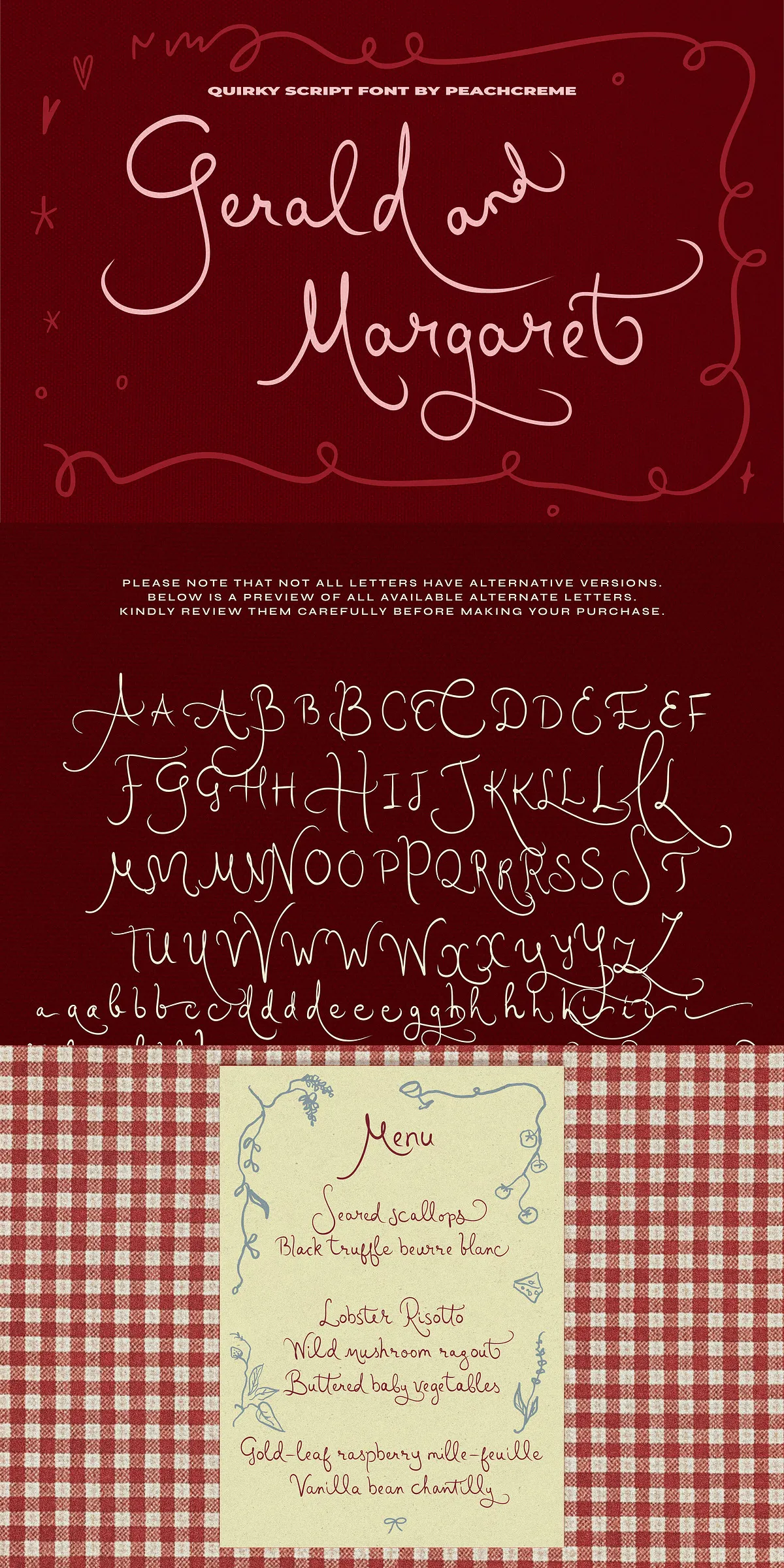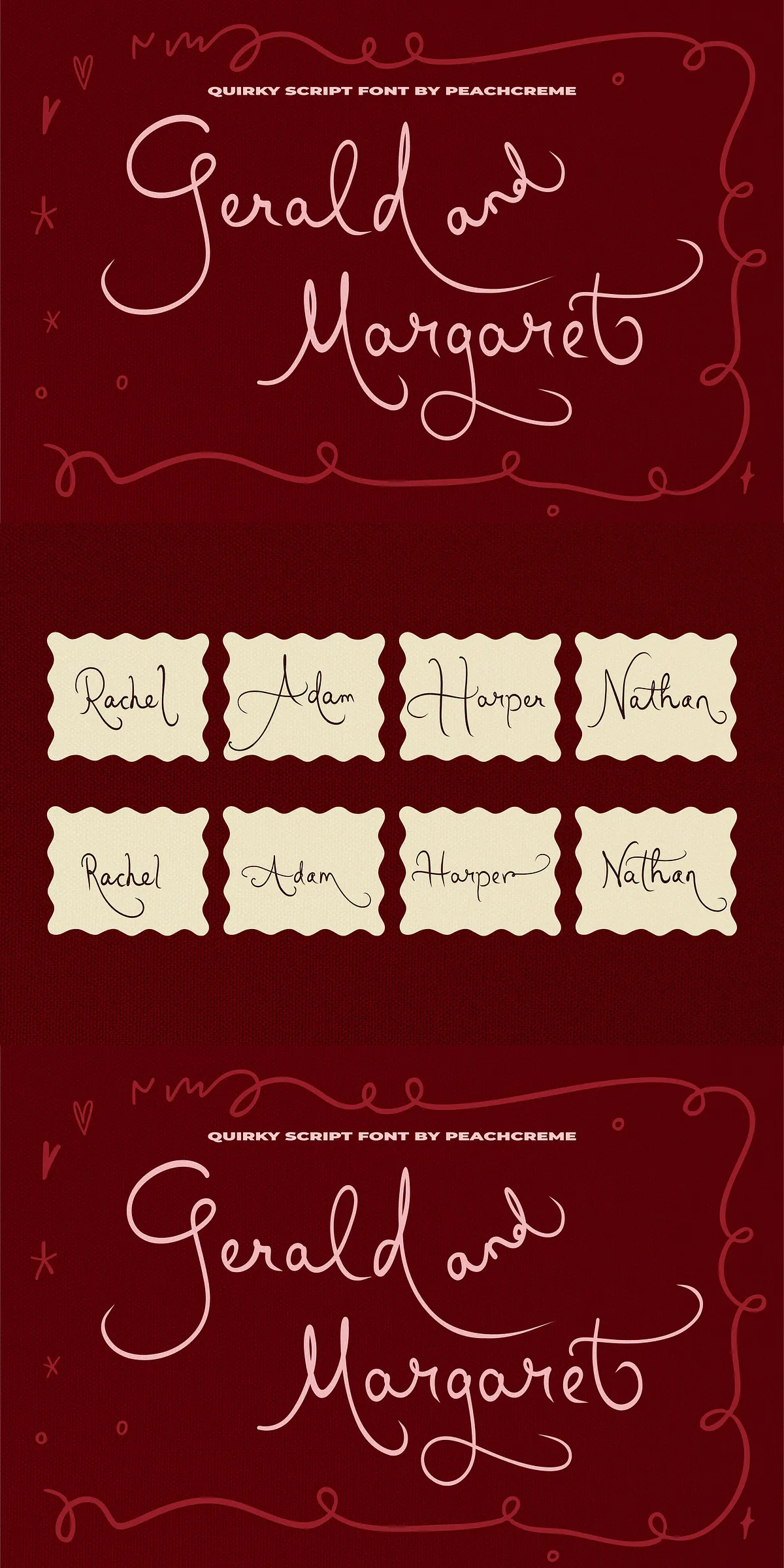
Unleash a burst of creativity with Gerald and Margaret Font — a delightfully quirky, light-hearted script designed to bring joy, warmth, and character to every project. Its fluid, hand-drawn strokes dance across the page with a natural rhythm that mimics genuine handwriting, making your designs feel personal, lively, and full of spirit. Whether you’re crafting a birthday invitation, a boutique label, or a brand identity, Gerald and Margaret doesn’t just spell words — it tells stories with charm and flair.
Born from Playfulness – A Script with Personality
Gerald and Margaret isn’t just a font; it’s a mood. Each character was thoughtfully crafted to reflect a carefree, artistic energy. The delicate upstrokes, expressive tails, and swaying curves create a visual rhythm that feels spontaneous, unstructured, and refreshingly alive. This isn’t rigid typographic perfection — it’s imperfection with a purpose. The intentional inconsistencies in stroke thickness and letter spacing echo the real magic of hand-lettering, giving your work an authentic, handmade identity that digital clones can’t replicate.
Rich Alternates & Ligatures for Dynamic, Unique Text
The real magic of Gerald and Margaret lies in its variety. This font pack comes packed with a curated set of alternative characters and custom ligatures that open up endless creative possibilities. Not all letters have alternates, but those that do offer multiple options — letting you vary your design with every word. With just a few clicks, switch between style options to avoid repetition, create visual interest, and tailor each line to your vision.
Ideal for Projects That Demand Charm and Energy
Gerald and Margaret thrives where personality matters most. Its expressive nature makes it a top choice for:
Handwritten Invitations & Event Stationery
Bring weddings, baby showers, and birthday parties to life with invites that feel personal and heartfelt. The natural flow of the script creates a warm, welcoming atmosphere — like receiving a real handwritten note from a friend. Use it for save-the-dates, menus, thank-you cards, and envelopes that stand out in a stack.
Brand Identity & Boutique Labeling
Design standout logos, packaging, and product tags for lifestyle brands, artisanal goods, gift shops, and beauty lines. Gerald and Margaret adds a human touch that builds trust and emotional connection. It’s perfect for brands that value authenticity, craftsmanship, and fun.
Creative Typography & Social Media Content
Make your Instagram quotes, Facebook posts, and Pinterest graphics pop with a font that grabs attention and holds it. The playful design cuts through digital noise, making your message more memorable and shareable. Ideal for influencers, content creators, and small business owners who want to look unique, not generic.
Merchandise & Print-on-Demand Designs
Turn mugs, tote bags, notebooks, and apparel into conversation starters. Gerald and Margaret transforms simple products into wearable art. Whether used in a short slogan or a full name, its distinctive look ensures your designs don’t blend in — they stand out.
What’s in the Pack?
- Complete set of uppercase and lowercase letters
- Numbers, punctuation, and special symbols
- Multiple alternate glyphs for select letters
- Custom ligatures for natural, flowing connections